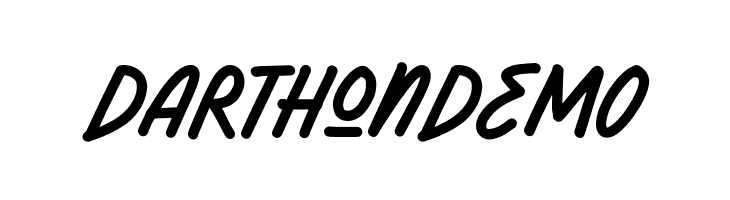
A bold, handwritten font with a playful and energetic style.
A playful, handwritten font with flowing, interconnected letterforms.
A bold, expressive handwritten font with fluid, sweeping strokes.
A bold, angular font with a dynamic, forward-leaning design.
A lively handwritten font with fluid, dynamic strokes and playful curves.